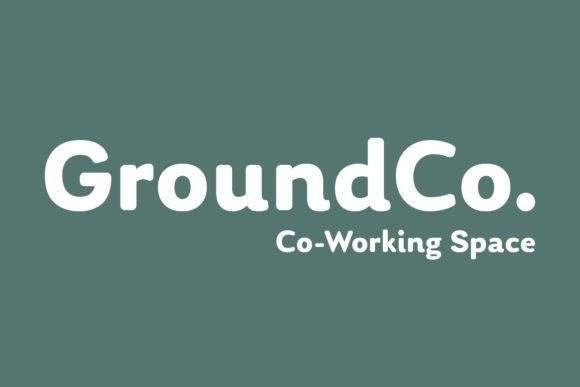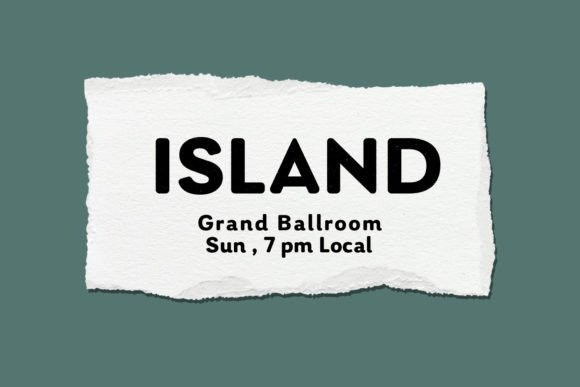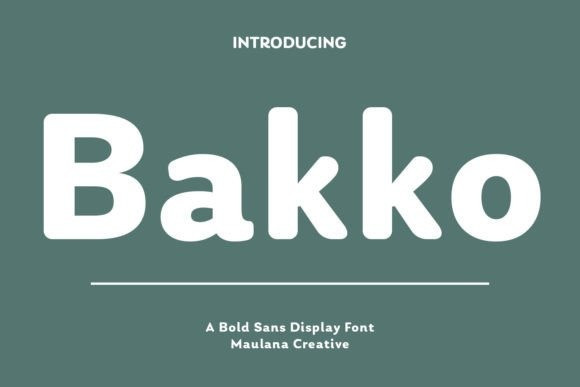
Bakko Font
Bakko Font is a modern and cool sans serif font. Neat and professional, this typeface is incredibly versatile so you can add it to a large variety of designs ideas.